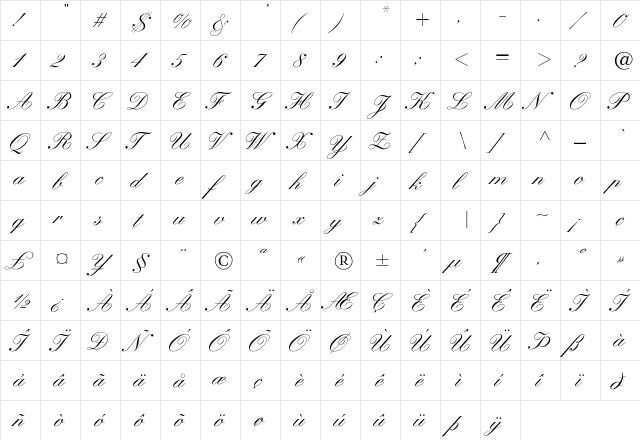
WynnerockScript-Medium Regular Font Preview
WynnerockScript-Medium Regular
Design Context for WynnerockScript-Medium Typeface
WynnerockScript-Medium brings a calligraphic fluidity to the page — its connecting strokes and expressive curves give it an unmistakably human quality.
Font Pairing: Combine WynnerockScript-Medium with a simple geometric sans for maximum contrast — the tension between flowing curves and clean structure is a classic typographic pairing.
Pro Tip: Use WynnerockScript-Medium for short runs of text — names, titles, or taglines. Extended body copy in script faces tires the eye quickly.